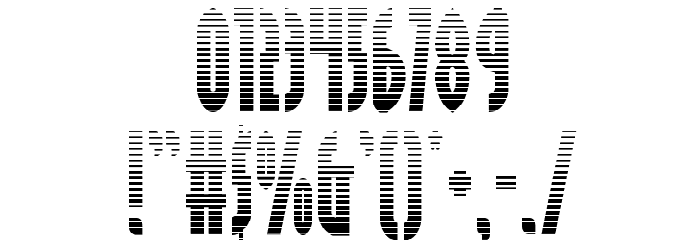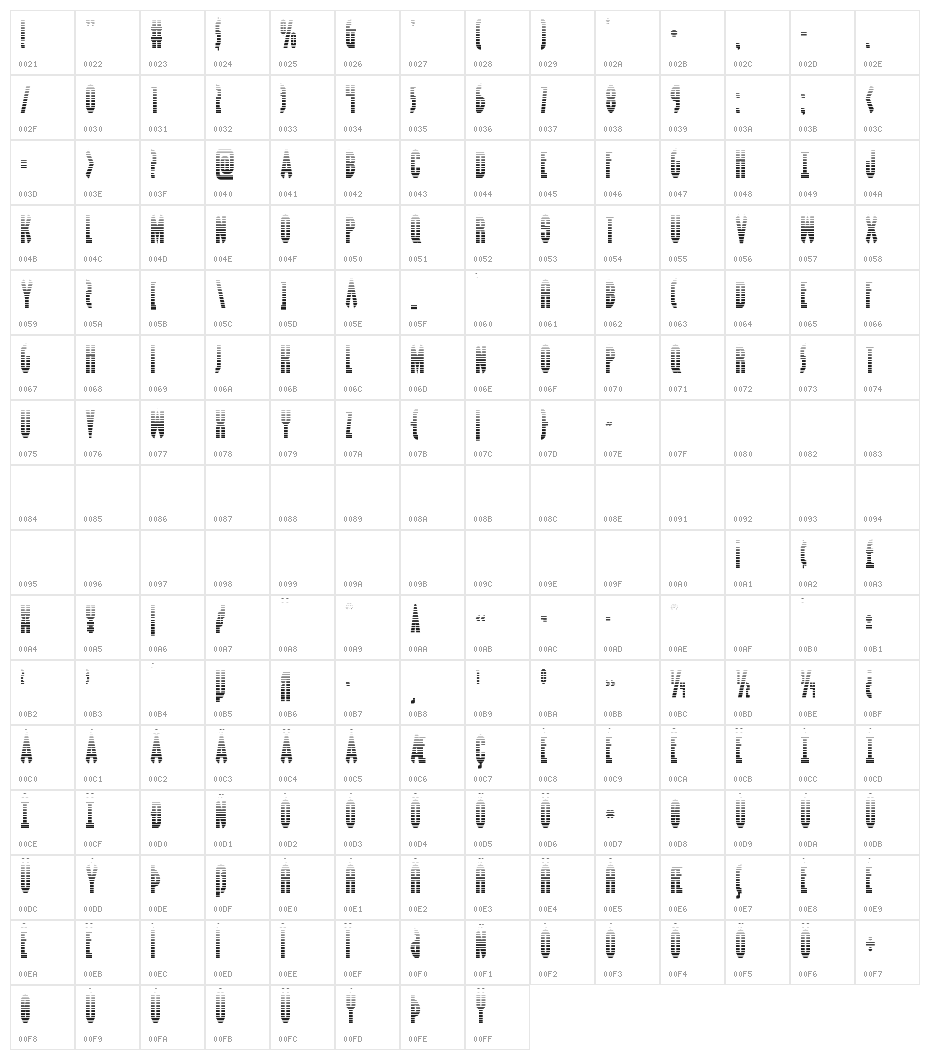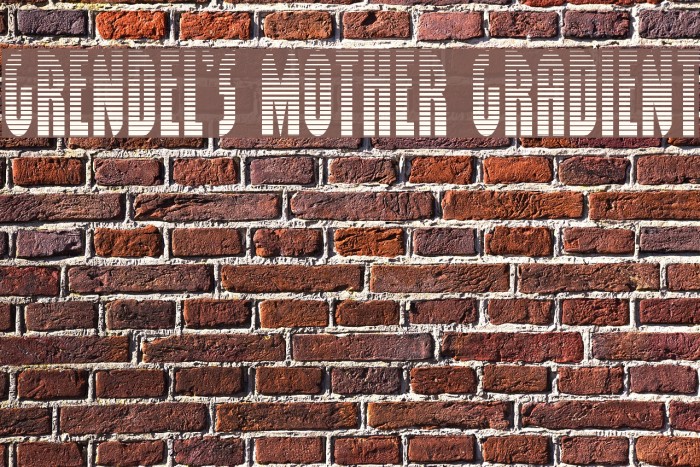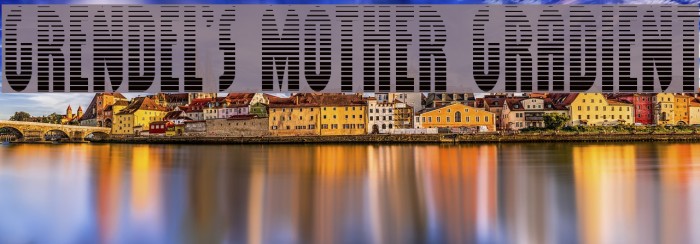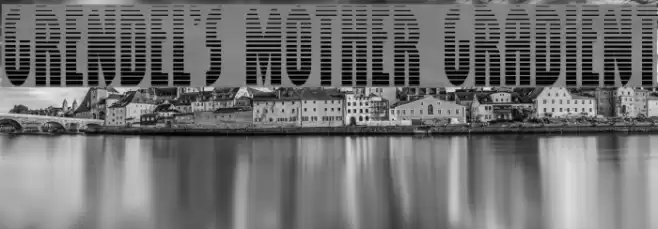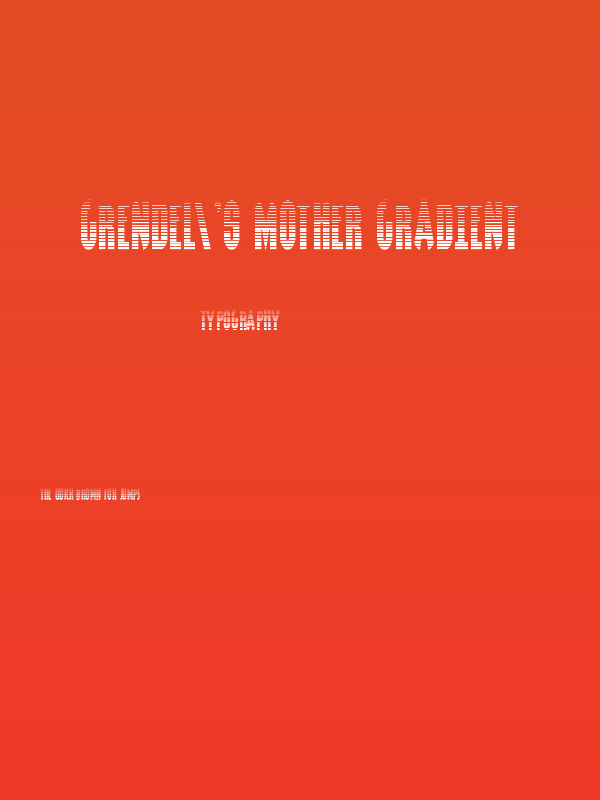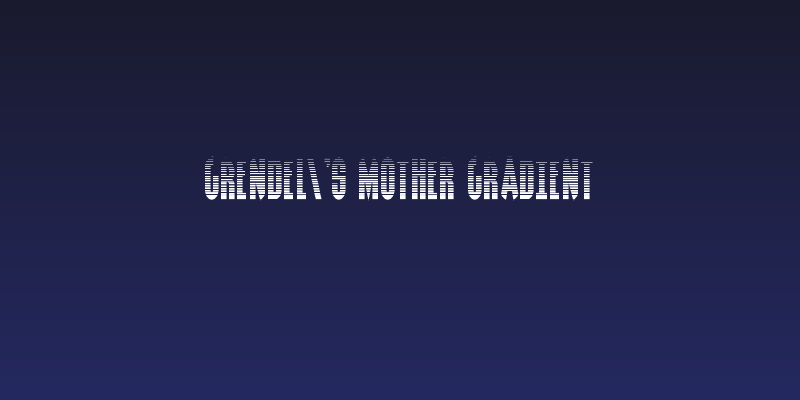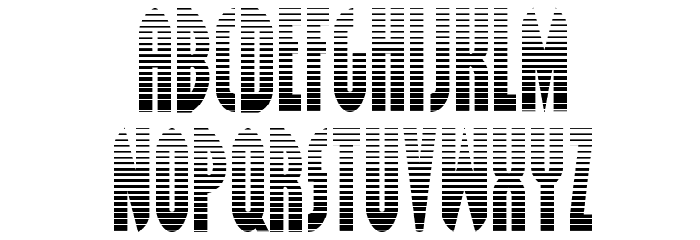
Grendel's Mother Gradient Font
Grendel's Mother Gradient Description
This font features a bold, decorative style with a unique gradient effect created by horizontal lines that vary in thickness. The uppercase and lowercase letters maintain a consistent width, contributing to a uniform appearance. The numerals and special characters follow the same stylistic approach, ensuring cohesion across all characters. The design is eye-catching and modern, making it suitable for projects that require a strong visual impact. The font's distinct look is achieved through its high contrast and the playful interaction of light and shadow within each character.
| Proposed Projects | Ideal for posters, headlines, branding, and any design project that demands attention. |